Good Will Hunting Font
The Good Will Hunting font perfectly embodies the reflective and heartfelt tone of the 1997 Academy Award–winning film. Its elegant serif design conveys depth, maturity, and authenticity—qualities that align with the movie’s themes of intelligence, emotional growth, and self-discovery. The font’s classic letterforms evoke a scholarly feel, making it both sophisticated and timeless in appearance.
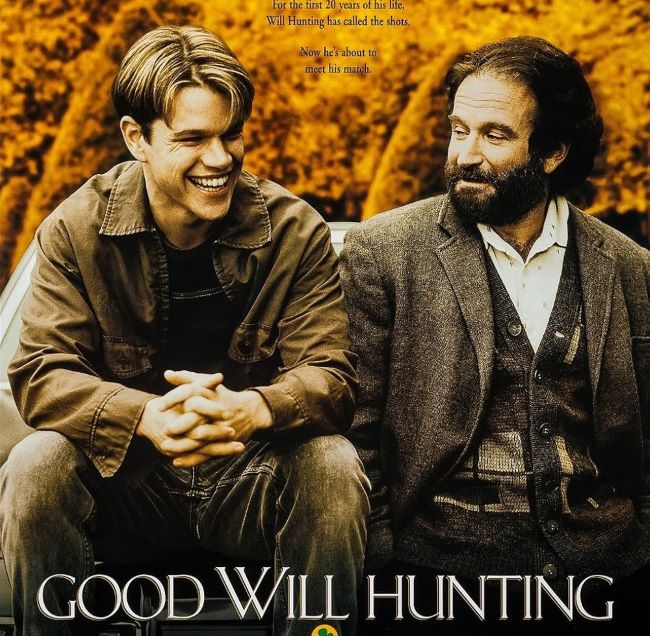
Although there is no official Good Will Hunting font released, similar aesthetics can be achieved using classic serif typefaces such as Adobe Garamond, Georgia, or Times New Roman. These fonts provide the same intellectual warmth and subtle elegance, ideal for projects that require a balance of emotional depth and academic sophistication. Their timeless readability and refined lines make them suitable for book covers, essays, or inspirational designs.